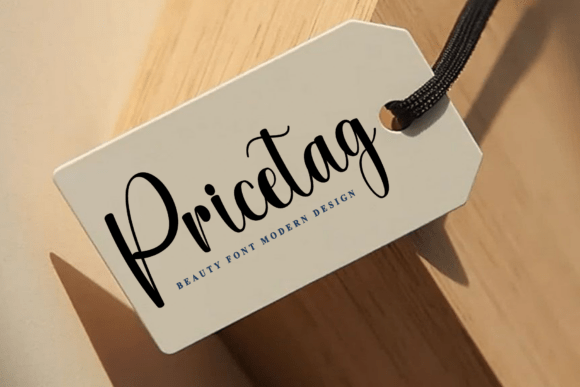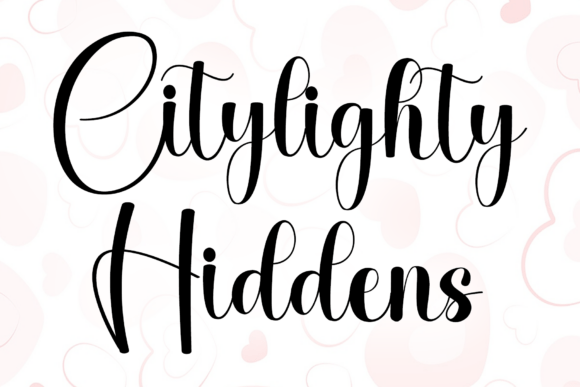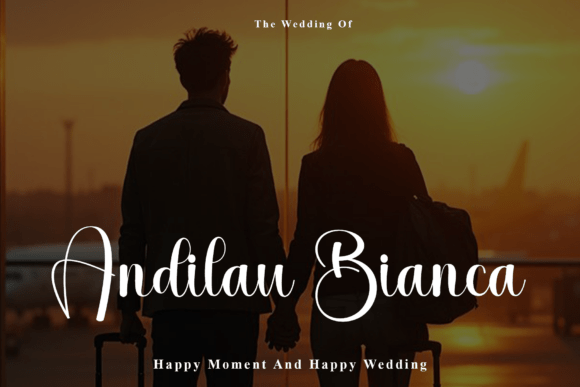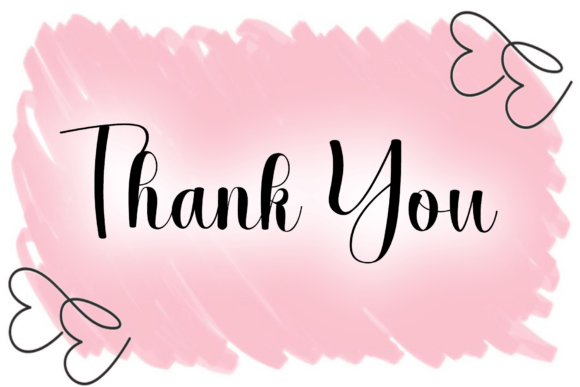
The Birth of a Beautiful Font: Discovering Better Birthday
I’ll never forget the time I was working on a birthday project for a client’s kid. I had all the design elements ready – the colors, the graphics, the layout – but something was missing. It wasn’t until I stumbled upon the Better Birthday font that the entire design came alive! If you’re a designer, crafter, or creative hobbyist looking for a lovely and timeless handwritten font, you’re in the right place.
A Personal Review: What I Love About Better Birthday
Here’s what makes Better Birthday a standout font:
- ✨ Unique and beautiful touch: Every letter has its own character, making your design truly special.
- ✅ Timeless look: Better Birthday has a classic feel that won’t go out of style anytime soon.
- 💫 Versatile: Perfect for creating eye-catching logos, branding, quotes, and more.
While Better Birthday is an amazing font, there are a few things to keep in mind:
- 🤔 Occasional kerning issues: As with any font, you might need to adjust kerning for optimal results.
- Experiment with OpenType features like ligatures, stylistic alternates, and glyphs to add personality to your text.
- Explore glyphs, ligatures, and stylistic alternates to customize your text.
The Story Behind Better Birthday: Designer Inspiration
Rumor has it that the designer behind Better Birthday was inspired by vintage birthday cards and wanted to create a font that captured the essence of celebration. With its unique touch and timeless look, it’s no wonder Better Birthday has become a favorite among designers.
| Is Better Birthday suitable for body text? | While Better Birthday is beautiful, it’s best used for headings or short paragraphs. Its unique touch might be distracting for longer texts. |